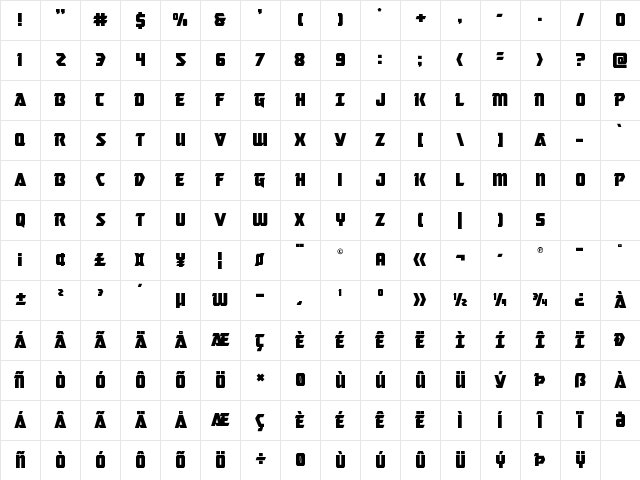
Master Breaker Regular
Master Breaker Family
Design Context for Master Breaker
Master Breaker is a composed and adaptable typeface that performs quietly and consistently across a wide range of design contexts.